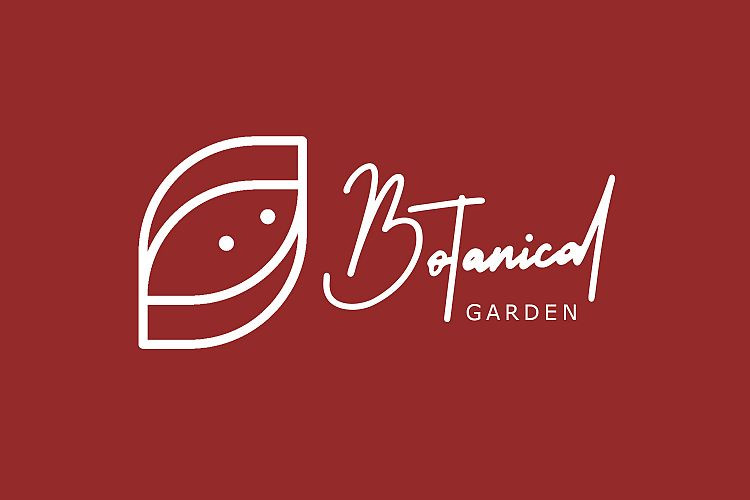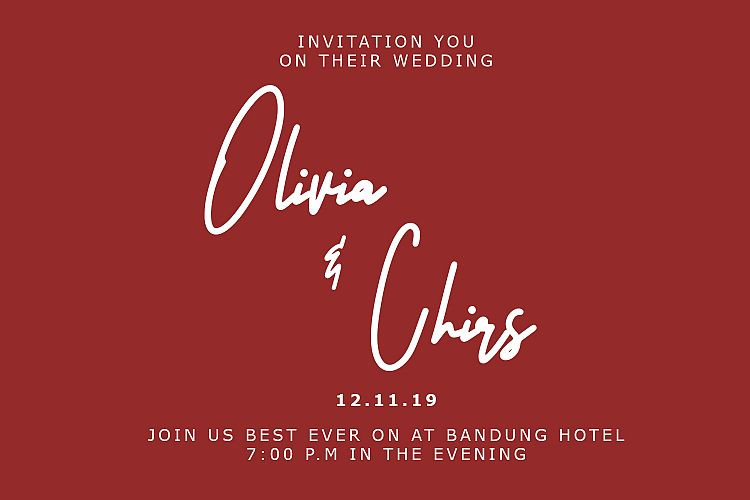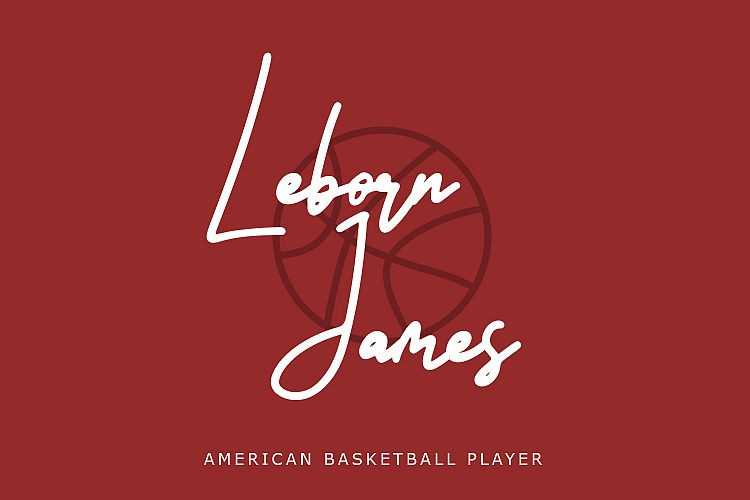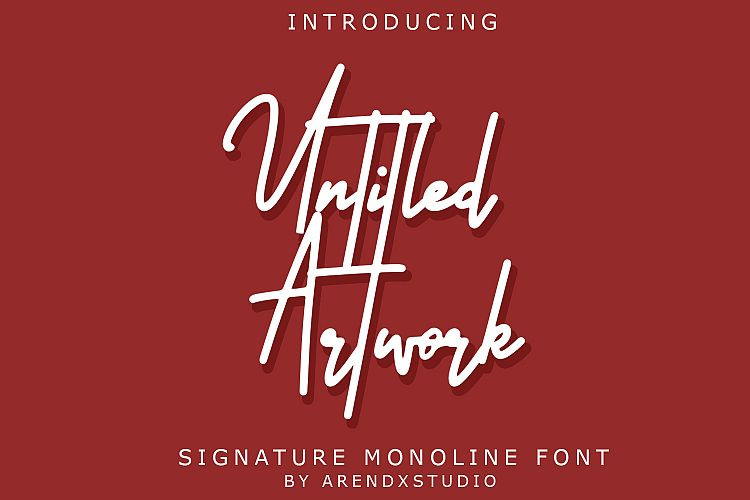
Untitled Artwork Signature Font
Untitled Artwork Signature – Free Demo
Untitled Artwork Font is a modern and elegant handwritten Very unique and stylistic font with a magnificent dressing that will suit all your design needs. It is design and shared by Arendxstudio. It’s made as elegant as possible for the use of your design project. Untitled Artwork offers a variety of design projects, including logos & amps, branding, wedding designs, social media posts, advertisements, product designs, magazines and more.